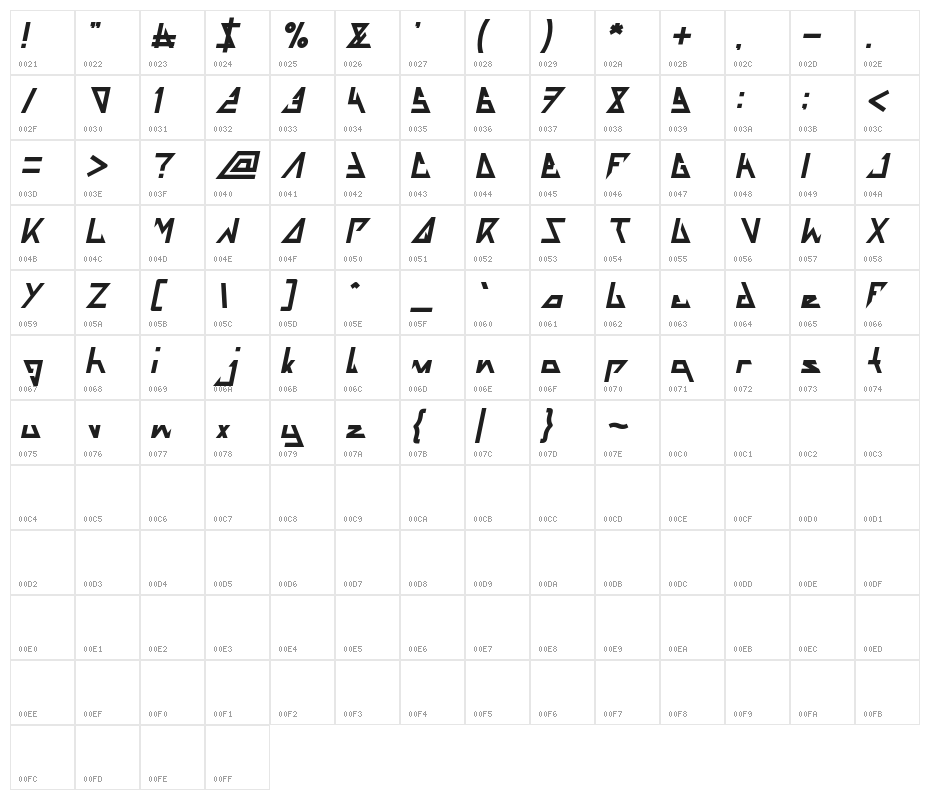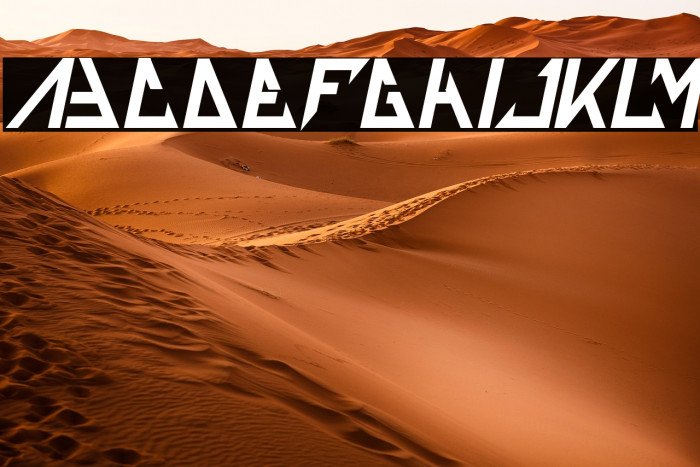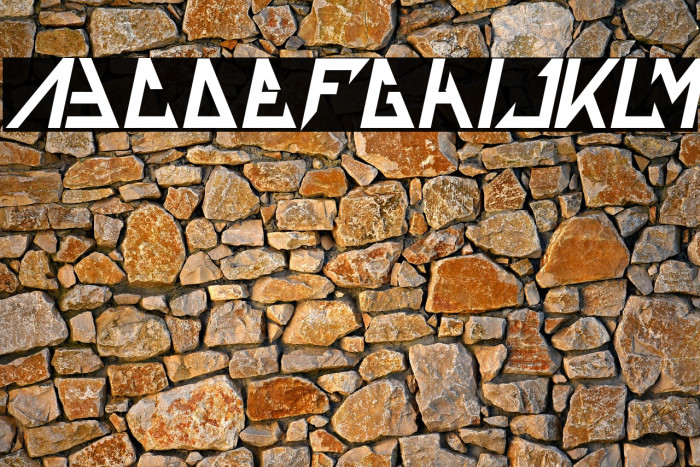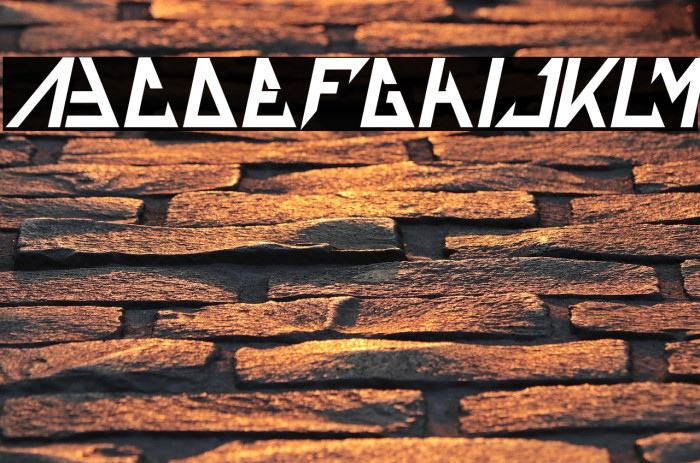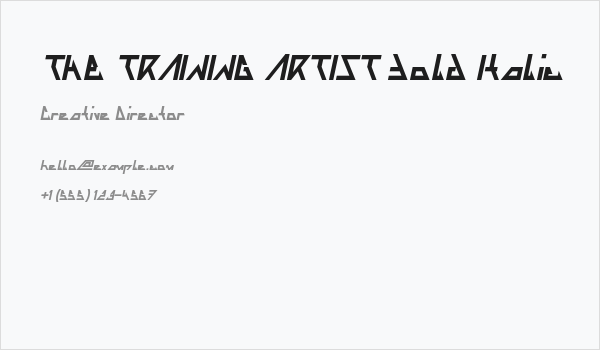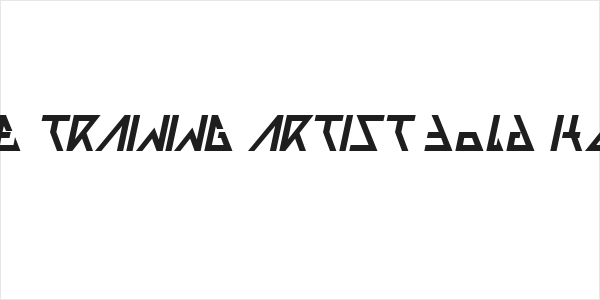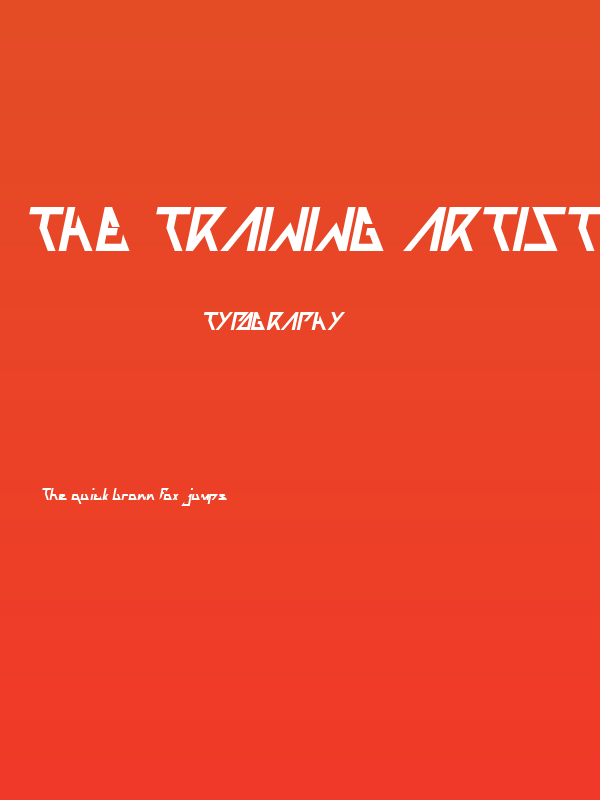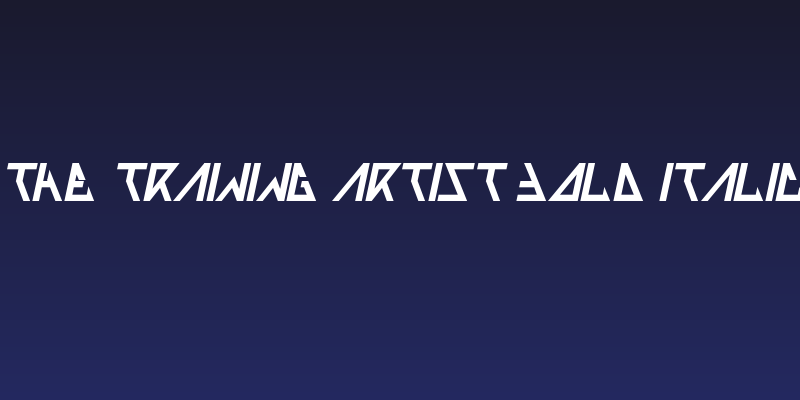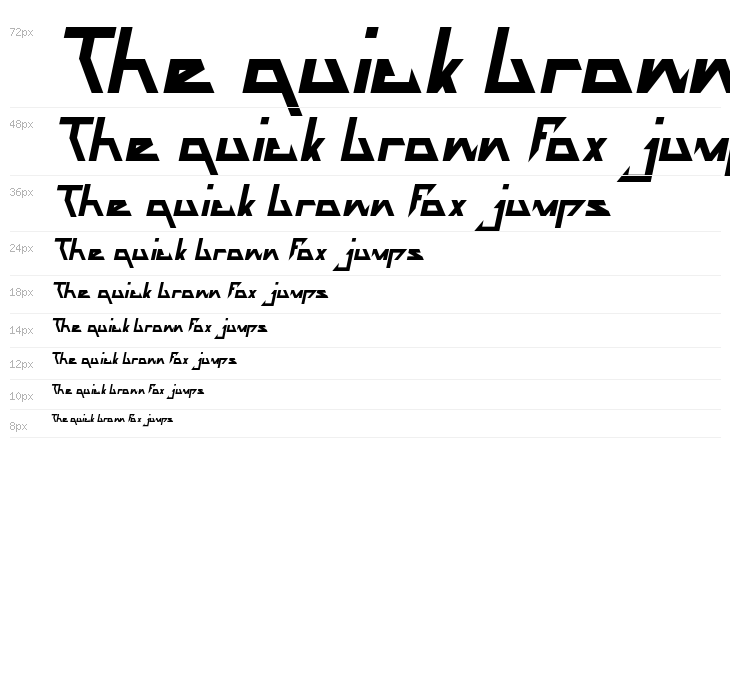
THE TRAINING ARTIST Bold Italic Font
THE TRAINING ARTIST Bold Italic Description
This font features a bold and italicized style with sharp, angular edges, giving it a futuristic and dynamic appearance. The uppercase and lowercase letters maintain a consistent geometric design, characterized by pointed terminals and diagonal strokes. The numerals and special characters follow the same angular theme, ensuring uniformity across all glyphs. The overall look is striking and modern, making it suitable for attention-grabbing designs.
| Proposed Projects | Ideal for sci-fi themed posters, video game titles, edgy branding, and modern logos. |